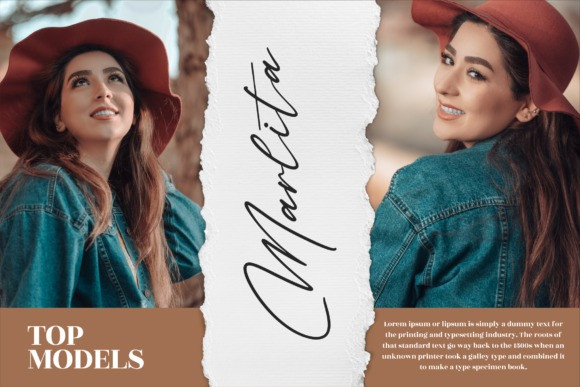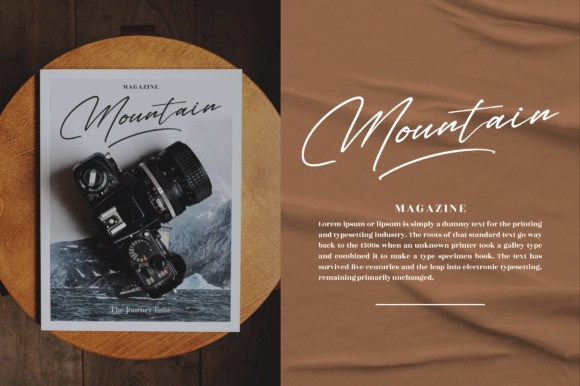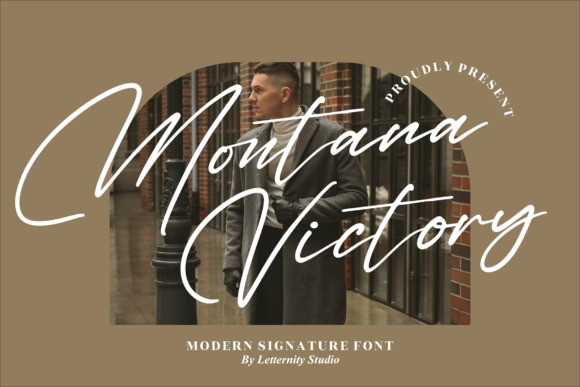
Montana Victory Font
Montana Victory Font is a chic, refined script font that emanates sophistication and elegance. Its stylish alternates and ligatures make this font the perfect match for any project.